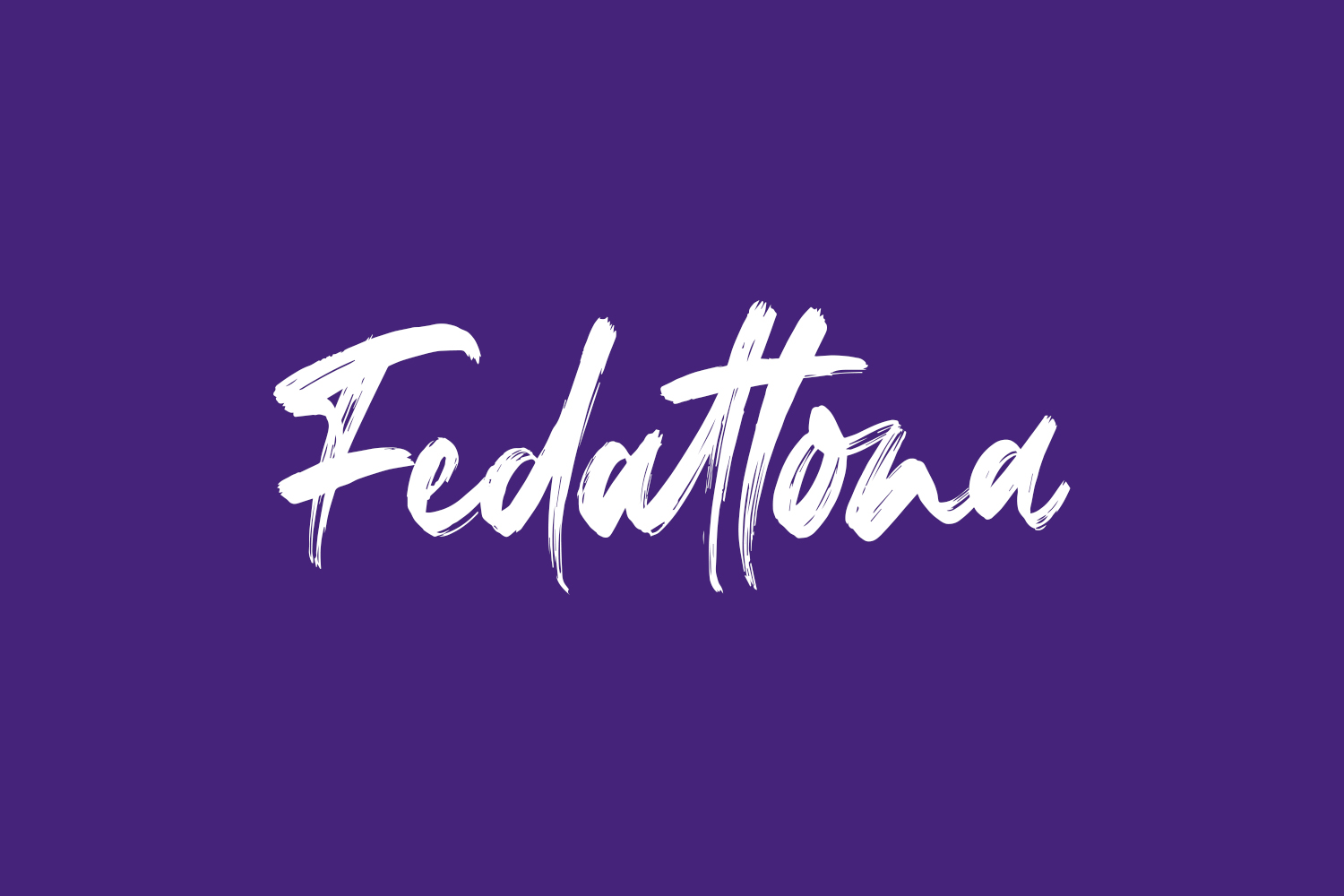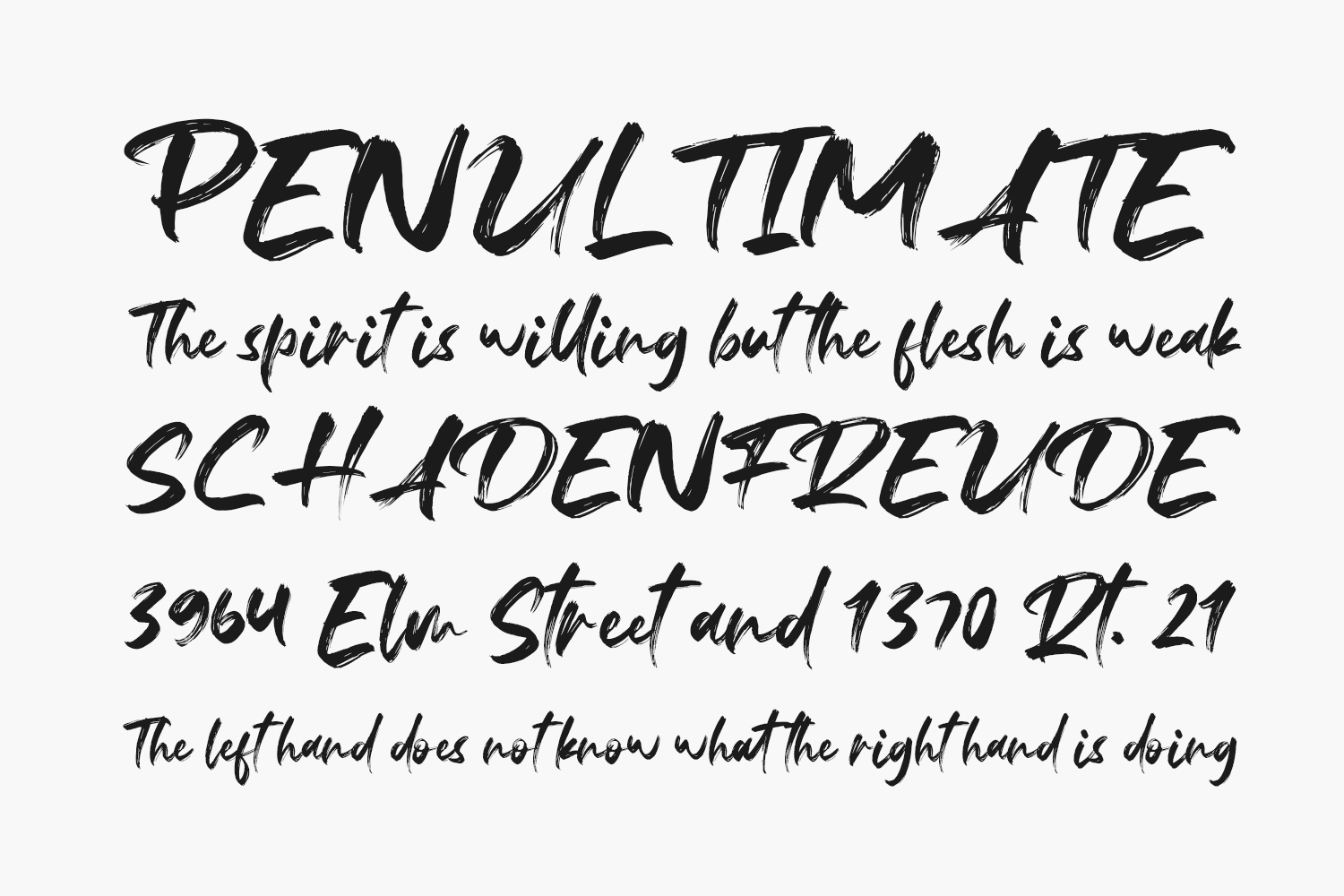
Fedattona Free Font Family is a cool and trendy brushed display font. Rough textured and unique, this font will make each of your designs come alive. Fedattona Free Font was designed by Letterena Studios and is free for personal use only. Please purchase the full version for commercial use.